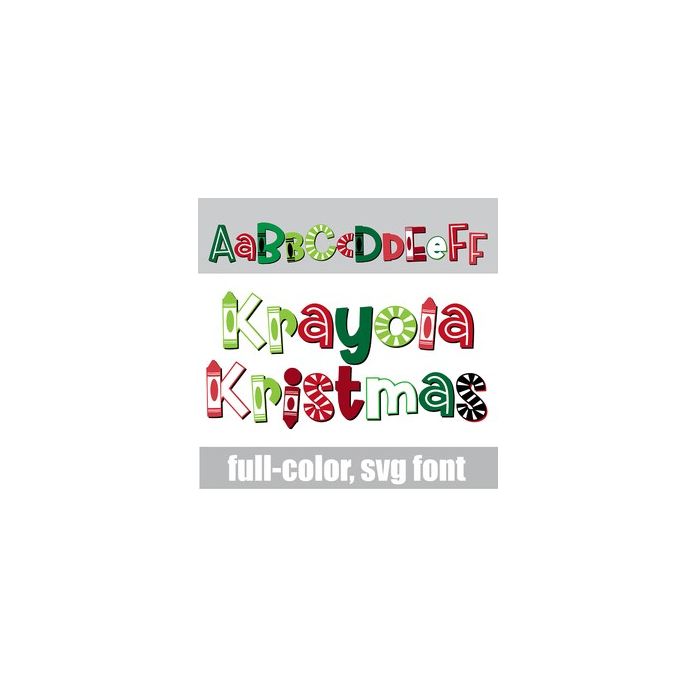
This full-color font features crayon-influenced lettering in a Christmas color palette. There is an alt case w/ additional colors you can access through your system or Silhouette's glyph map.